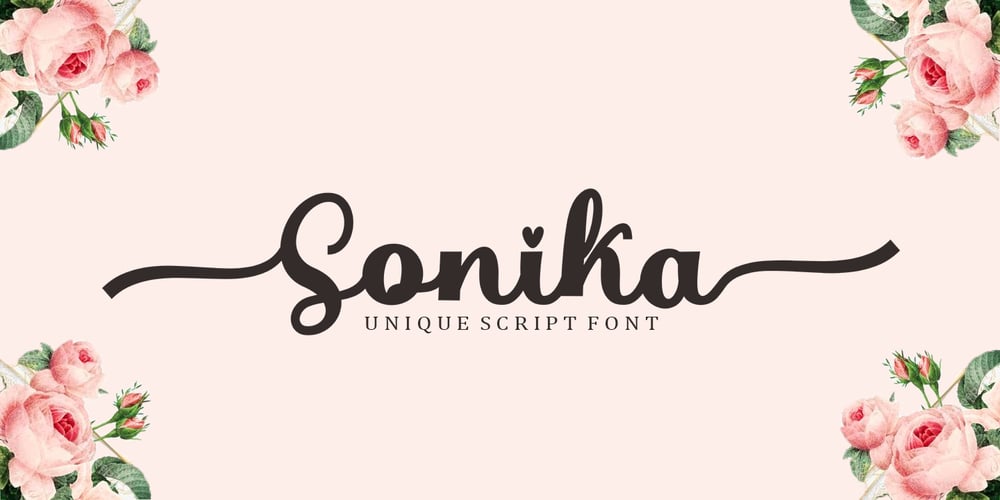
Sonika Script Font Family was designed by Mu Fazzal and published by Bosstypestudio. Sonika Script contains 1 styles and family package options. Sonika Script is a script type family of four fonts. It is inspired by Lovely Fonts and has a soft and welcoming look. Sonika Script can be used for branding, packaging and wherever you need a script font that is easy to read and smooth. Sonika Script has many ties, strokes, and alternative characters that will make your designs unique and beautiful.